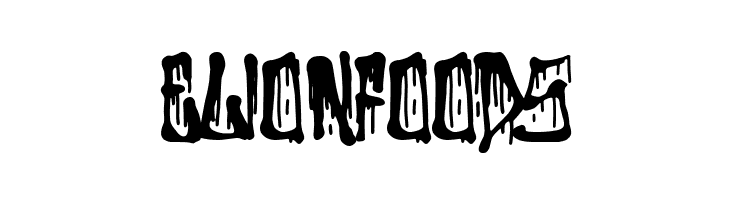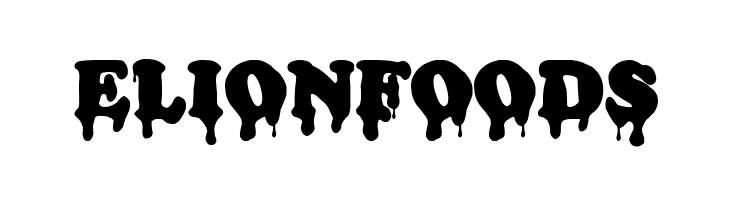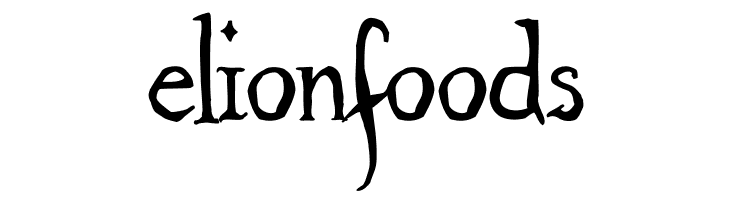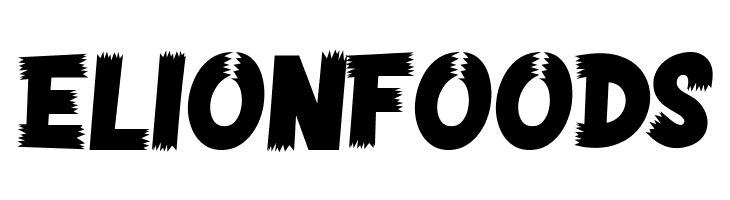
A bold, bone-like font with a jagged, textured design ideal for spooky themes.
A playful, bone-themed decorative font perfect for creative projects.
A bold, dripping graffiti-style font with a rebellious edge.
A bold, dripping font with a spooky, horror-themed design.
A dripping, horror-themed font with a liquid-like appearance.
A spooky, dripping font perfect for horror themes.
A whimsical, gothic-inspired font with playful curls and swirls.
A bold, jagged font ideal for horror-themed designs.
A bold, dripping font with a spooky, horror-themed aesthetic.